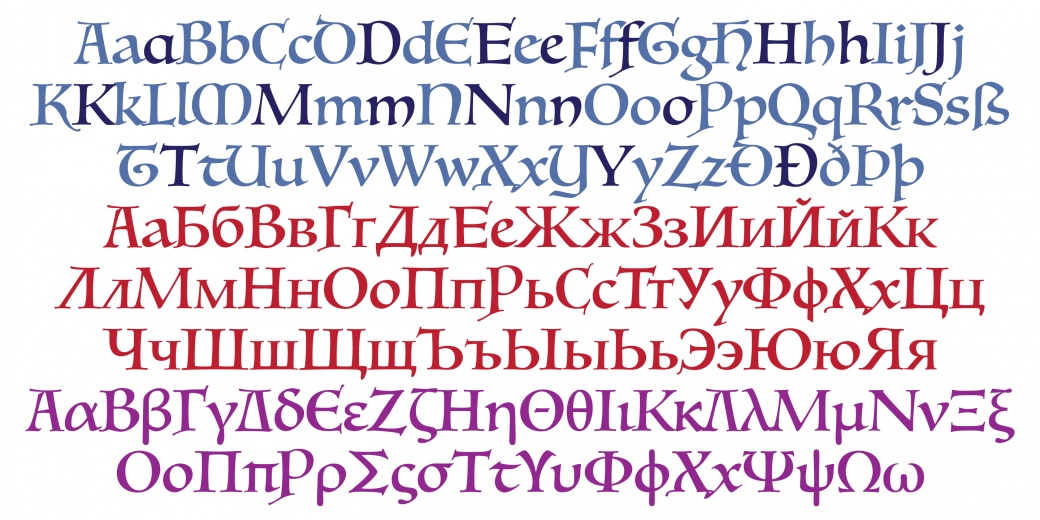
Luminari Font
Luminari Font is perfect for illuminated manuscript recreations, medieval-themed entertainment, historical museum displays, Gothic fantasy branding, ceremonial event design, religious institution communications, ancient text reproductions, and mystical storytelling projects.
What makes Luminari Font exciting is its illuminated grandeur that embodies the sacred artistry and medieval magnificence of illuminated manuscripts with monastic authenticity and Gothic splendor. The font features ornate letterforms with manuscript proportions and illuminated character that evoke monastery scriptoriums, golden leaf details, and the painstaking beauty of medieval calligraphy and sacred text illumination. Its distinctive illuminated styling and sacred appeal communicate reverence, artistry, and historical magnificence, making every message feel blessed by monastic devotion and touched by the divine beauty of illuminated manuscripts and Gothic artistic tradition.
The Luminari Font family includes regular weight with uppercase and lowercase letters, numerals, punctuation marks, and special characters. Premium versions often feature ornamental alternates and illuminated elements that enhance the medieval, sacred aesthetic perfect for historical and ceremonial applications.
This magnificent illuminated typeface brings instant authenticity and historical credibility to any medieval-themed project. Luminari Font Free Download offers exceptional value for cultural institutions and entertainment organizations seeking to communicate medieval grandeur, sacred artistry, and illuminated manuscript authenticity to history enthusiasts and Gothic culture appreciators.
The sacred character of Luminari Font makes it particularly valuable for medieval museums, Gothic entertainment venues, and religious heritage organizations. Its excellent readability ensures historical messaging and sacred communications remain clear while maintaining the distinctive illuminated aesthetic that appeals to audiences seeking authentic medieval experiences and Gothic artistic beauty.
Medieval cultural marketers appreciate how Luminari Font effortlessly conveys historical authenticity and sacred artistry. The font's ornate proportions and illuminated details create prestigious educational materials that establish connections with audiences who value medieval history, sacred art, and the magnificent craftsmanship of illuminated manuscripts and Gothic cultural heritage.
The versatile magnificence of this typeface extends to fantasy entertainment, religious education, and medieval historical preservation where illuminated authenticity enhances cultural credibility and sacred appeal. Luminari Font Free Download provides creative professionals with an essential tool for developing memorable, heritage-driven designs that resonate with audiences who embrace medieval culture, sacred artistry, and the luminous beauty of illuminated manuscript tradition in their historical and cultural experiences.